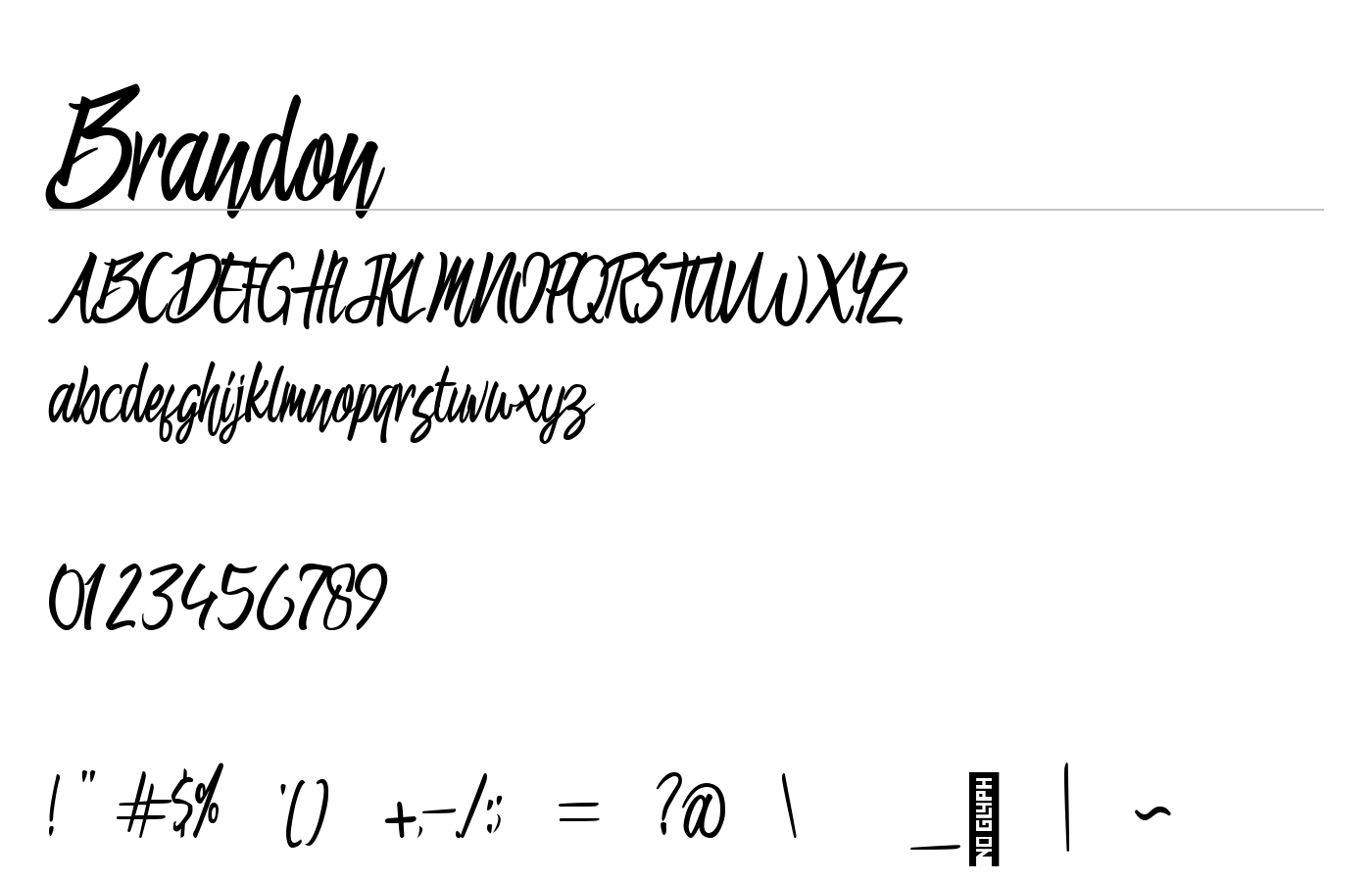
Brandon is a lively script font with a handwritten feel, characterized by its slender, slightly slanted letterforms and energetic stroke style. It combines casual elegance with a playful touch, making it an excellent choice for creative branding, invitations, and social media graphics where a personal, stylish vibe is desired. Its clear readability in both uppercase and lowercase also allows it to work well in headlines and decorative text.
Brandon Font